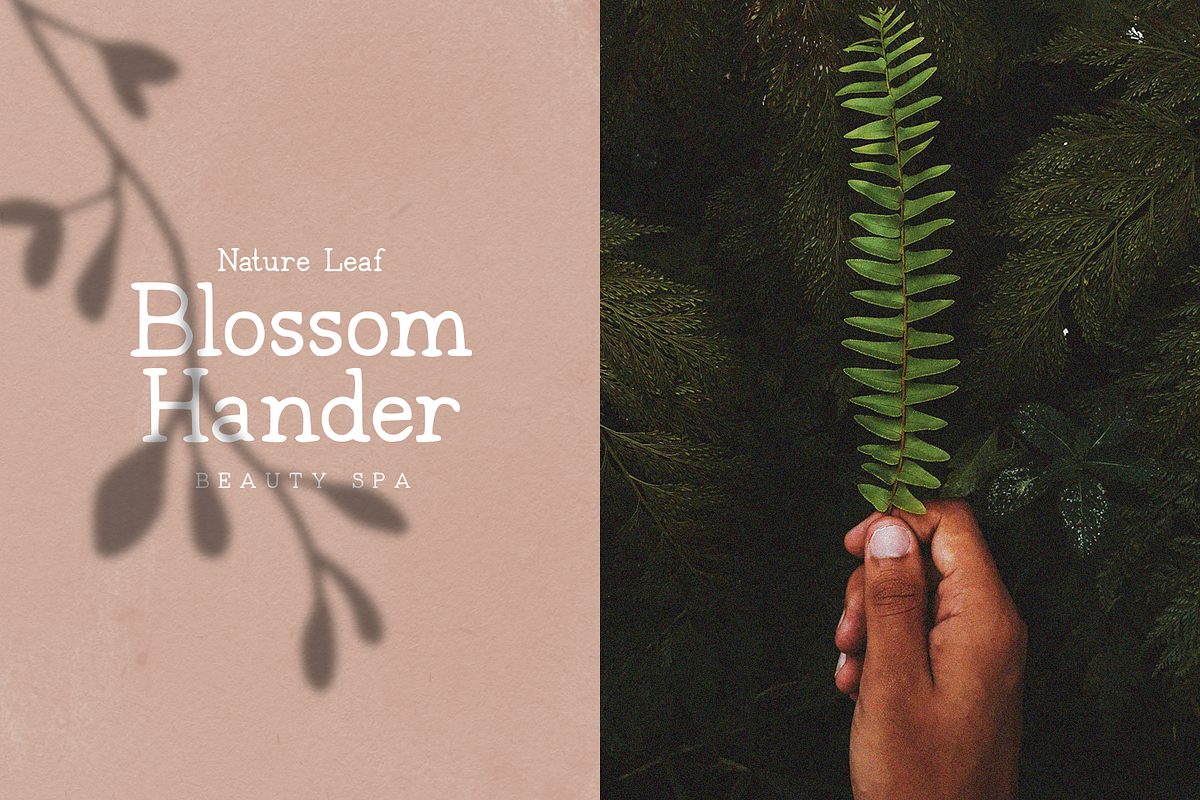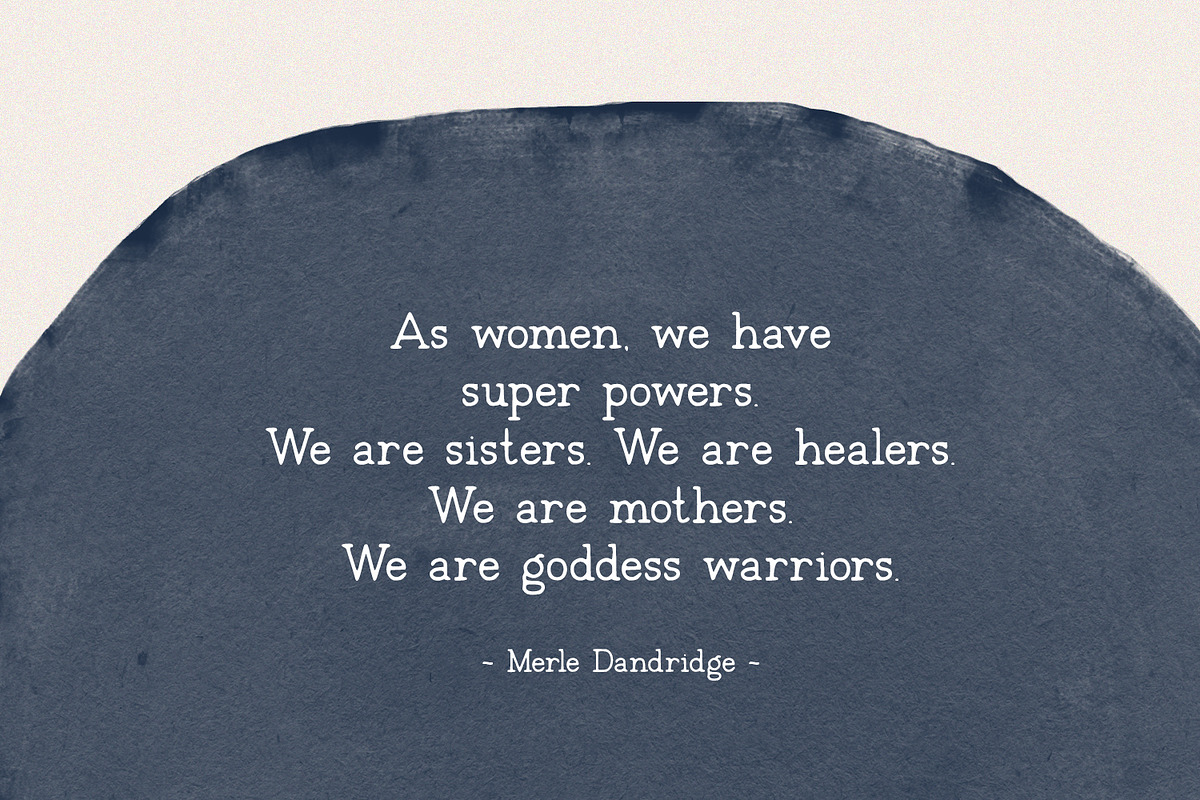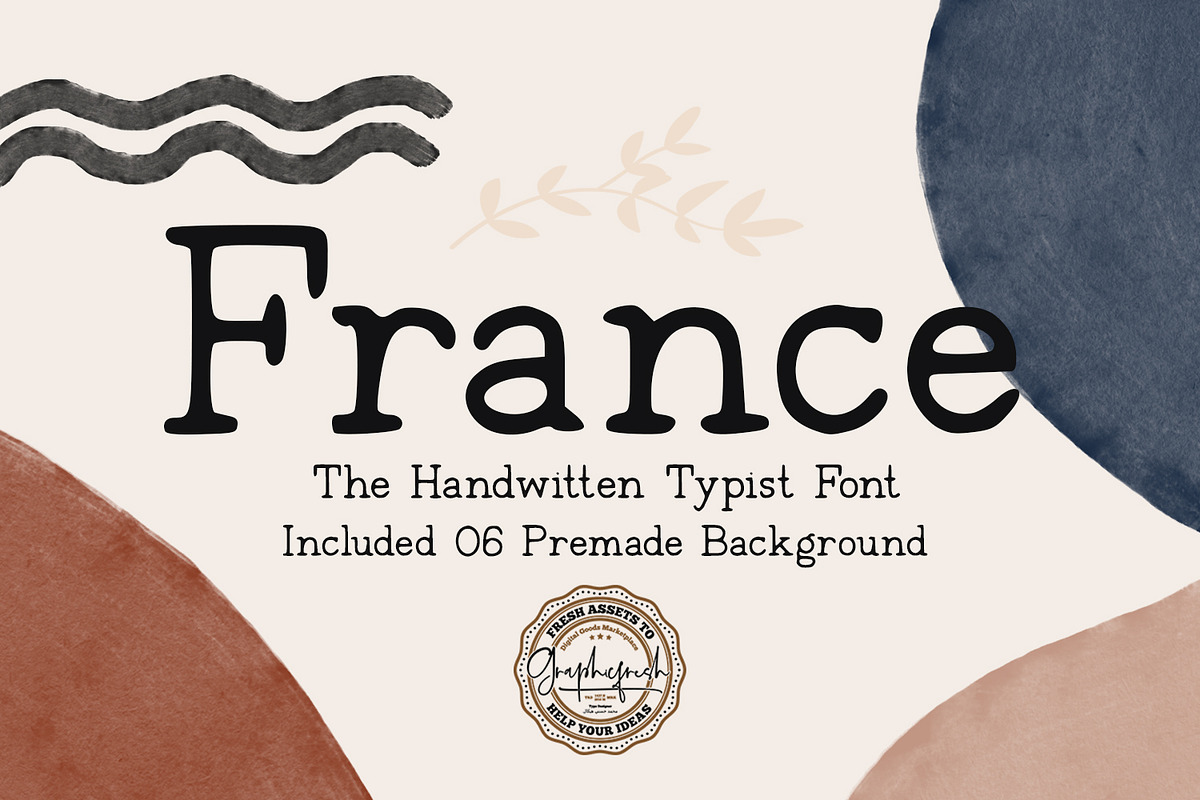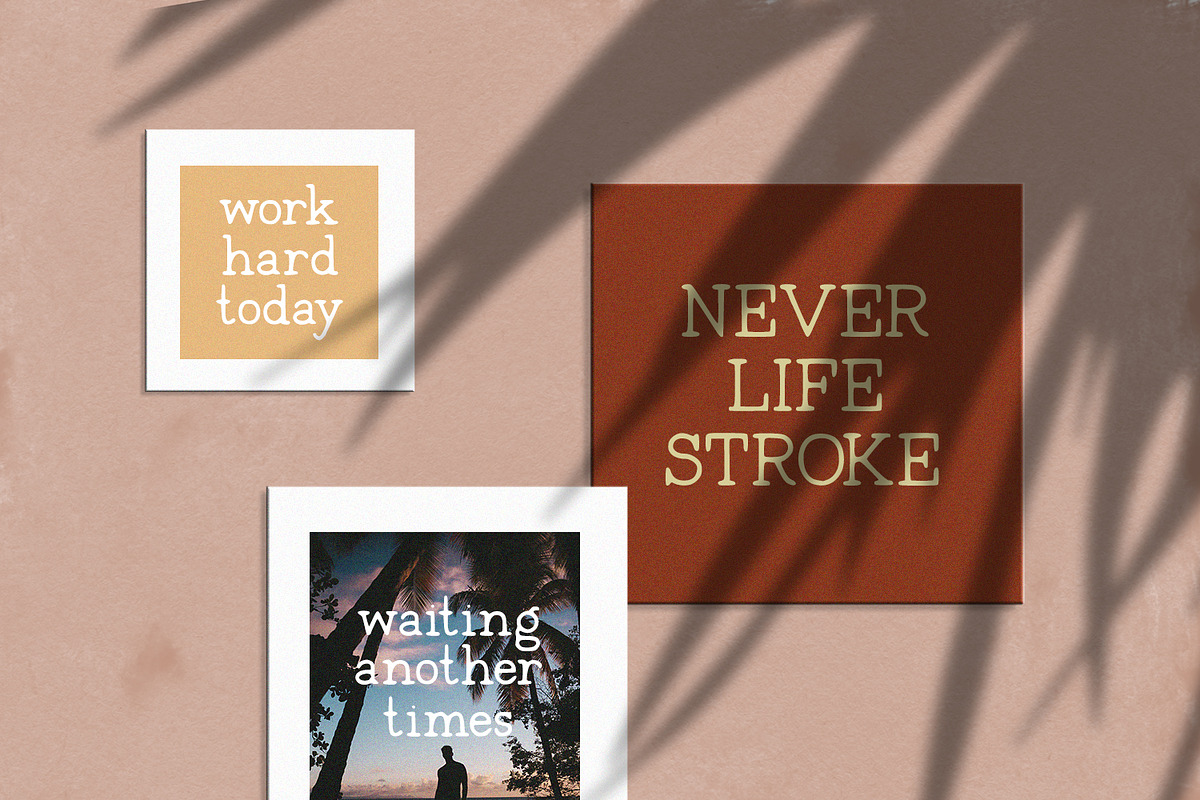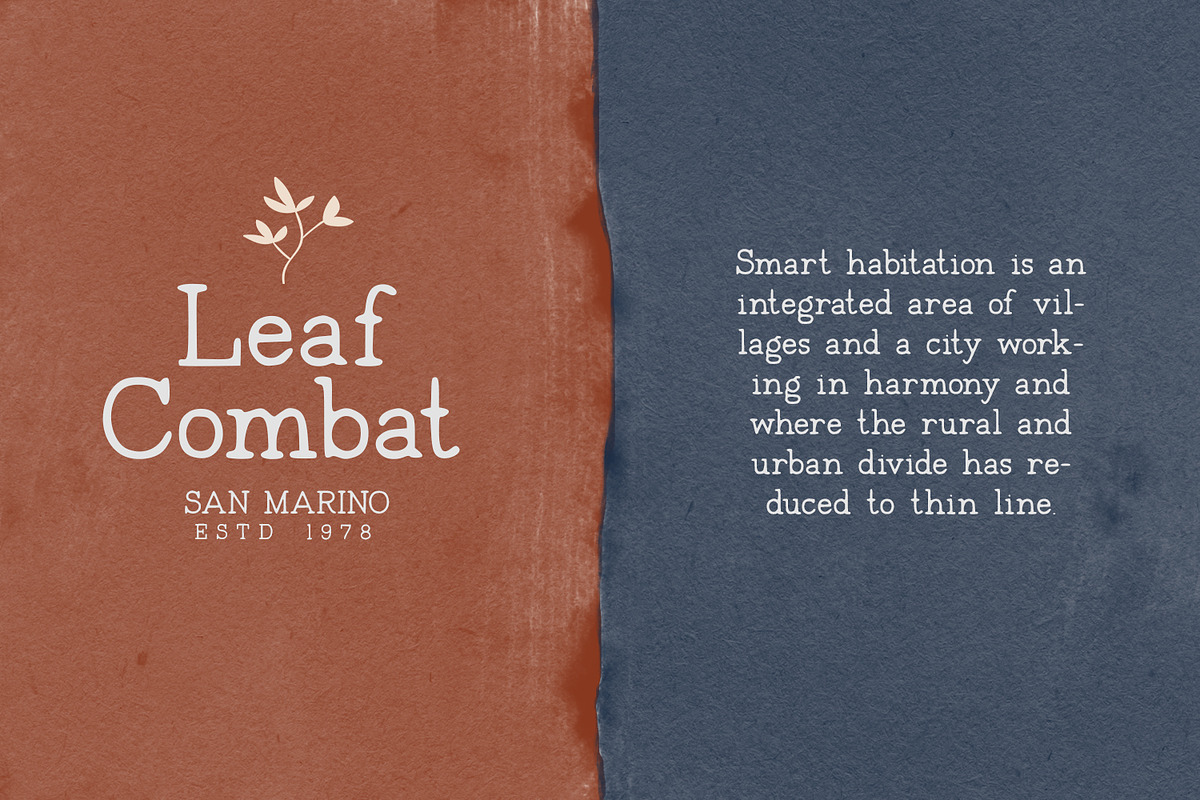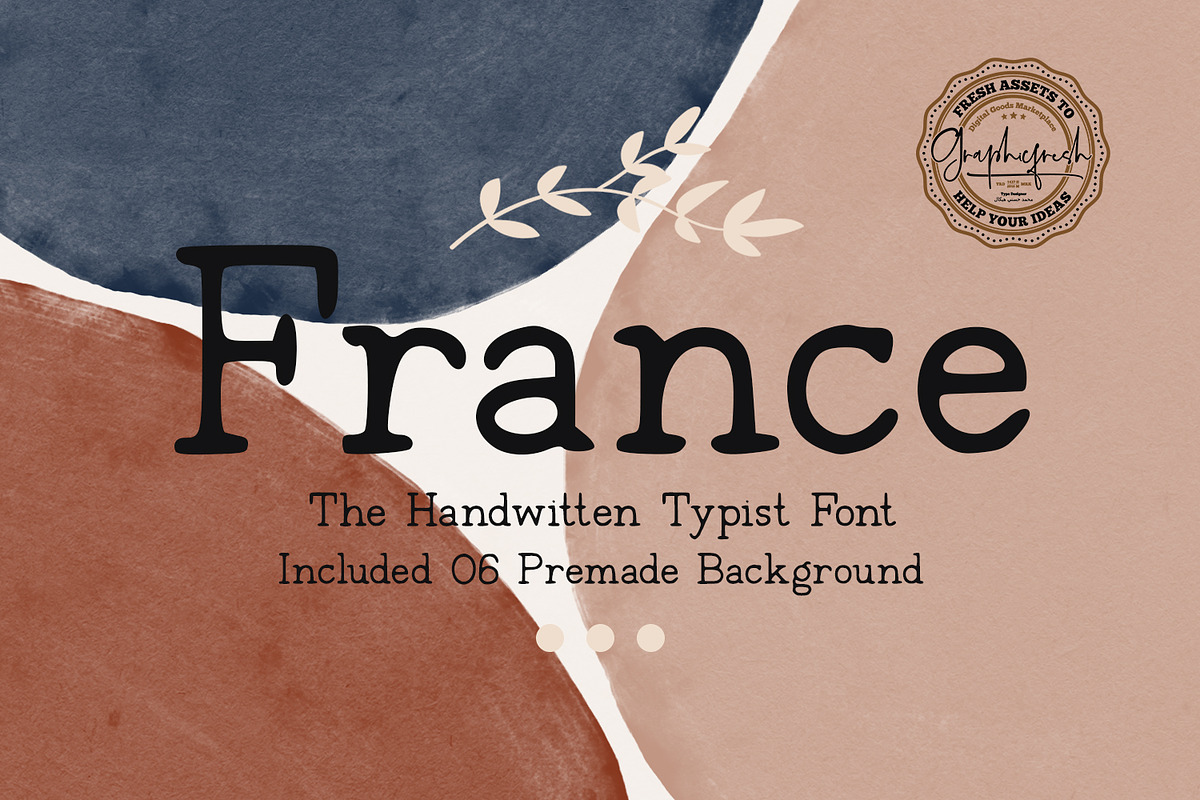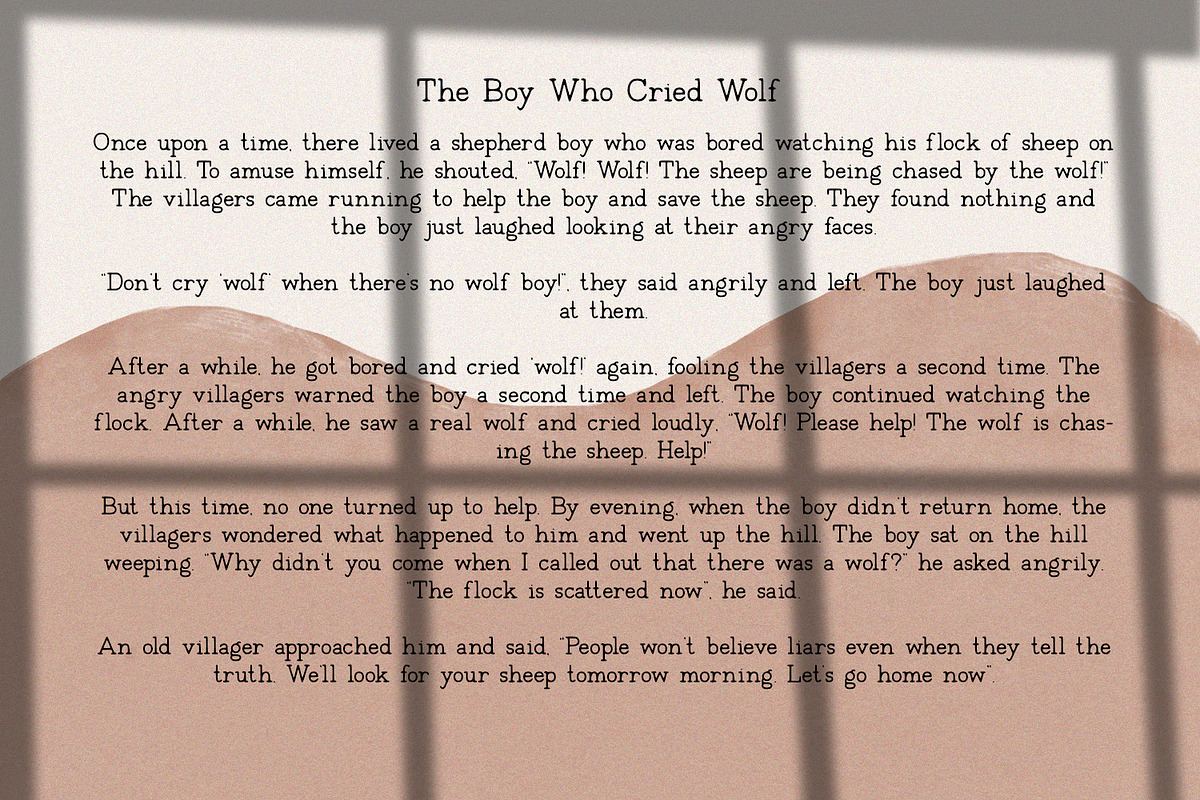
France + Free 6 Premade Background
I made a special font this time. This font is inspired by typewriter letters. So, I scratch using pen ink so the authenticity of the hand texture is still awake. I hope you like it. In the file, we also give you a bonus. In the form of 6 Watercolor Backgrounds with colors that are warm now.
This font is perfect for branding, wedding invites, magazines, mugs, business cards, quotes, posters, and more.
- Suitable for Headlines, Logotypes, Signs, Posters, Letterhead, T-Shirt and many more.